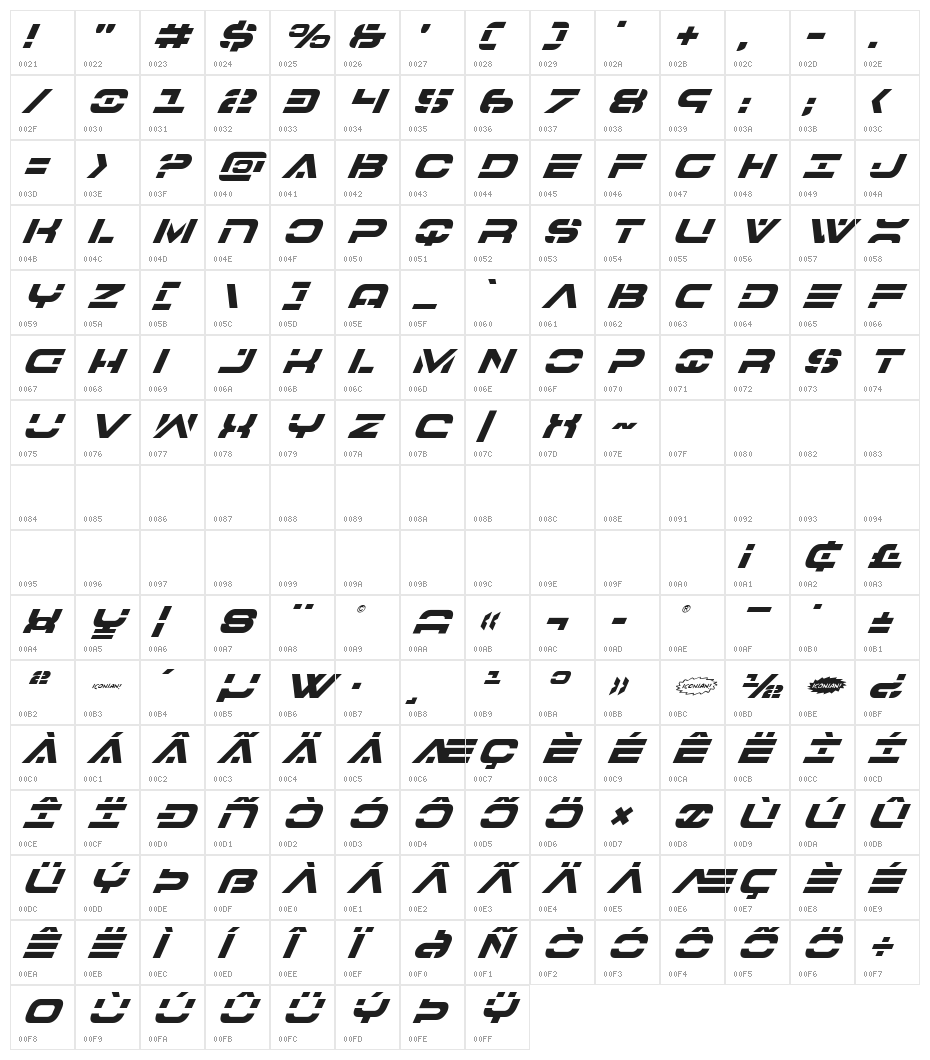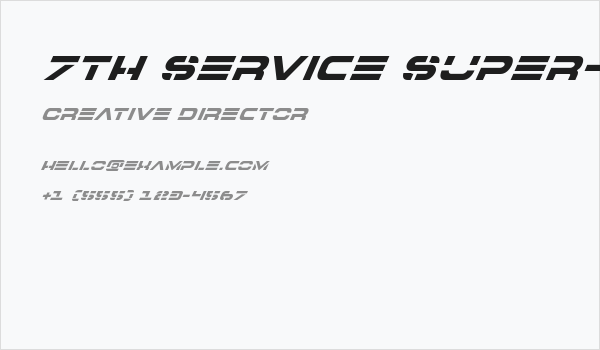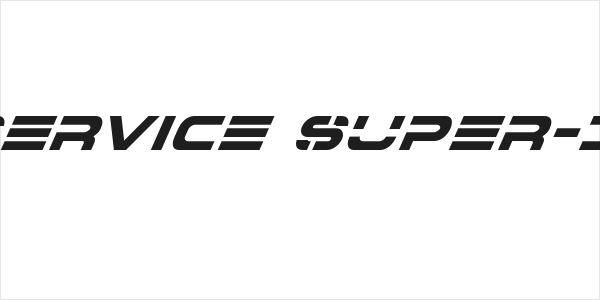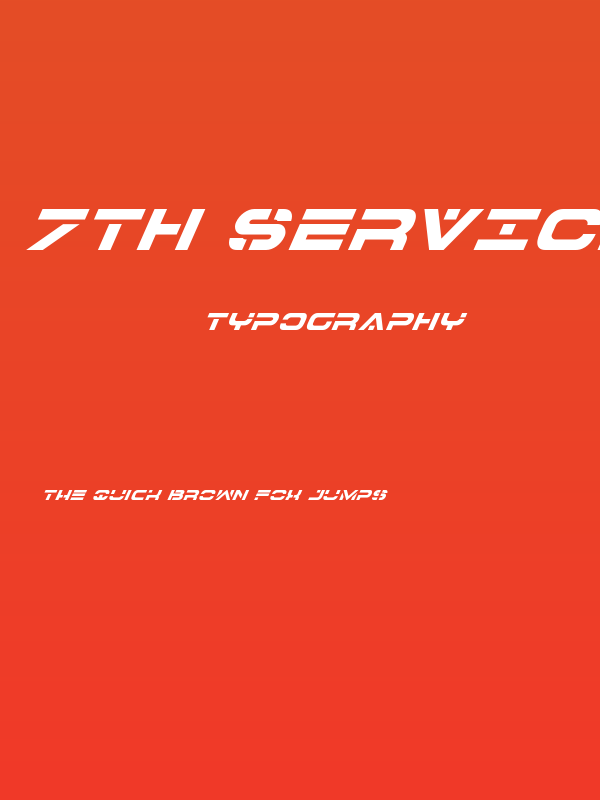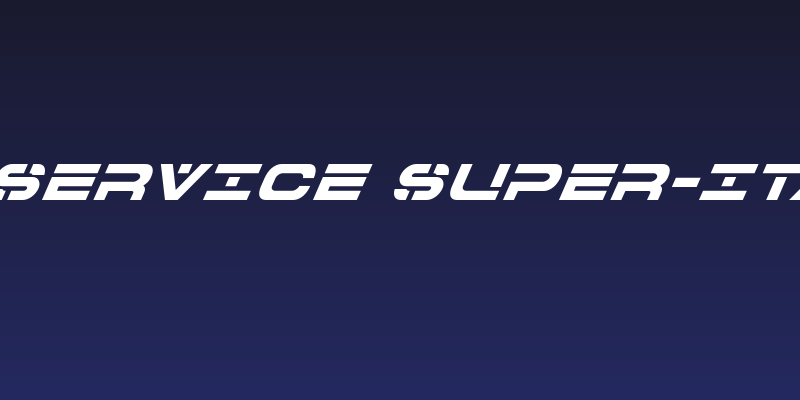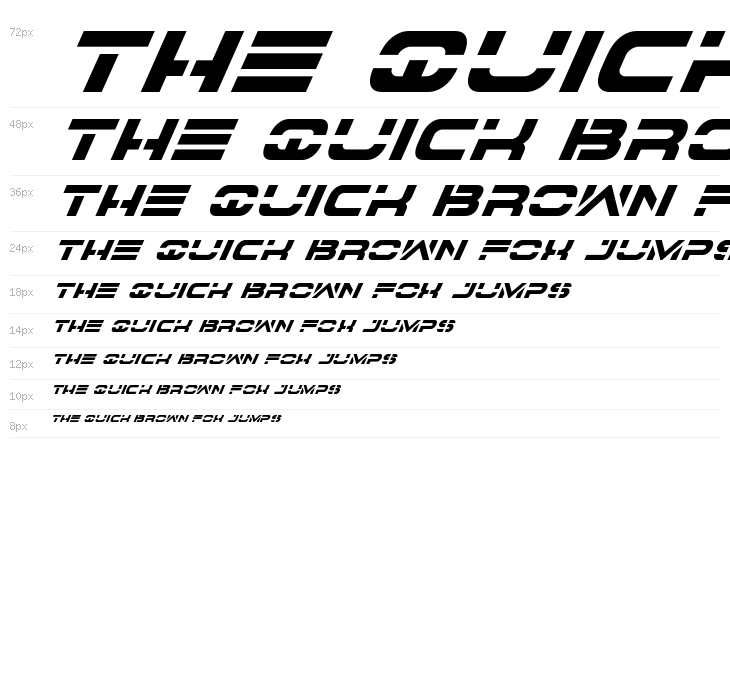
7th Service Super-Italic Font
7th Service Super-Italic Description
This font features a bold, italicized style with a futuristic and dynamic appearance. The characters are designed with sharp angles and a slanted orientation, giving them a sense of motion and speed. The uppercase letters are distinct with unique cutouts and geometric shapes, while the lowercase letters maintain a consistent style. The numerals and special characters follow the same angular and slanted design, ensuring uniformity across the font. The overall aesthetic is modern and tech-inspired, making it suitable for projects that require a contemporary and edgy look.
| Proposed Projects | Ideal for tech branding, sports team logos, video game titles, and sci-fi themed posters. |